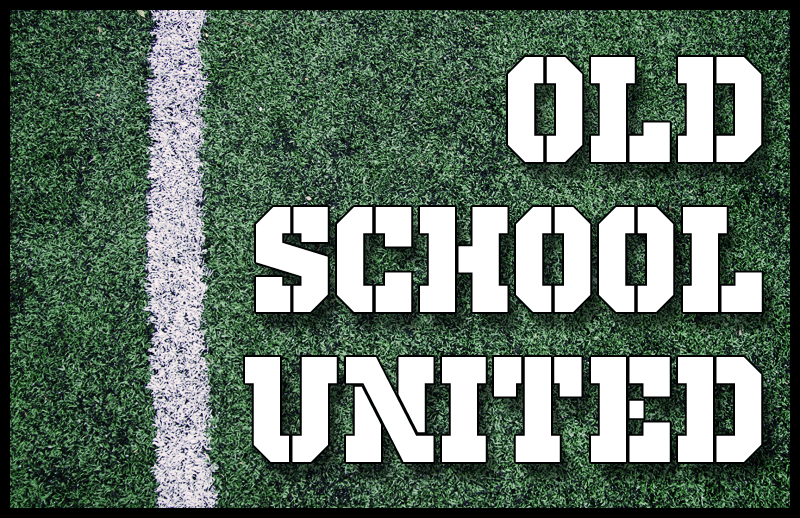
Preview and download Old School United Stencil Font. Created by Frederic in Fancy Stencil, Army styles with Free for personal use license.
This font is the "stencil" version of my font Old School United: http://www.dafont.com/old-school-united.font It has more than 350 letters, so you will be able to use it in French, Spanish, Swedish, Icelandic, Polish, Lithuanian, Latvian, Romanian, Serbian, Russian, and so much more! This font is free for personal use. You can buy the commercial license here: https://sellfy.com/p/bfAZ/ The preview picture was originally taken by Januszek, and can be found here: http://www.sxc.hu/photo/1018520 Facebook: http://www.facebook.com/fthafm | Website: http://www.fthafm.com/ |